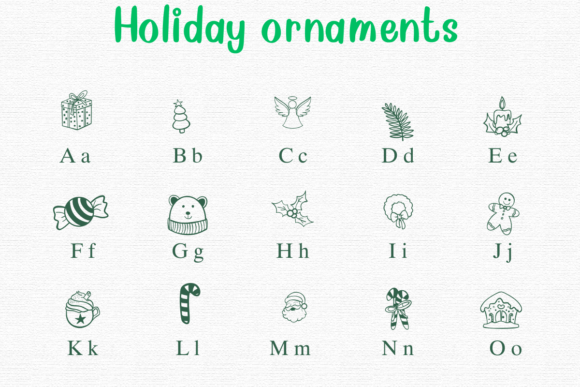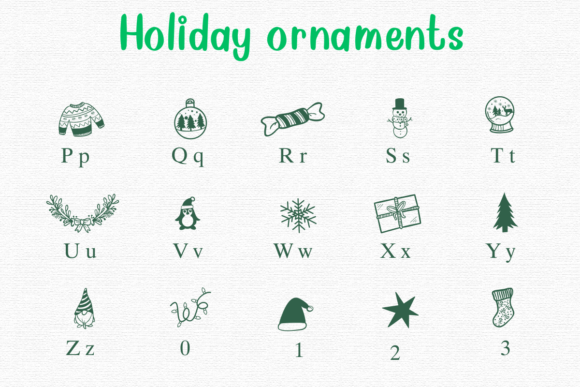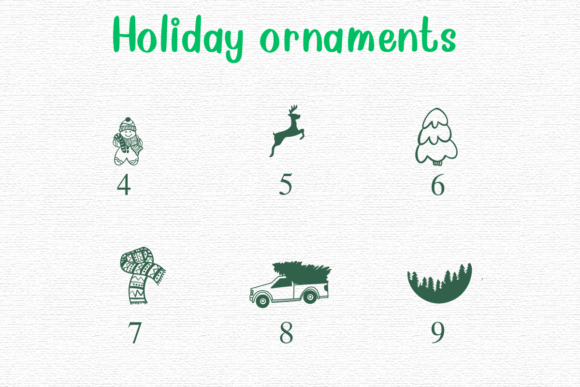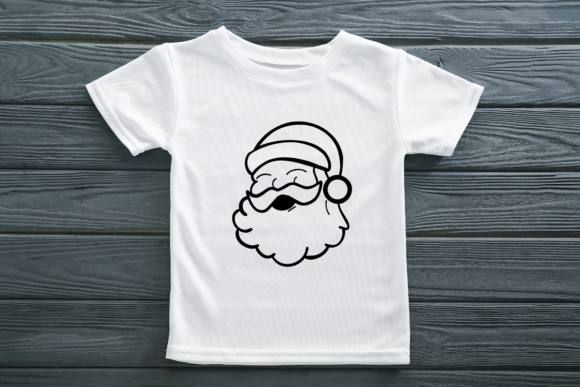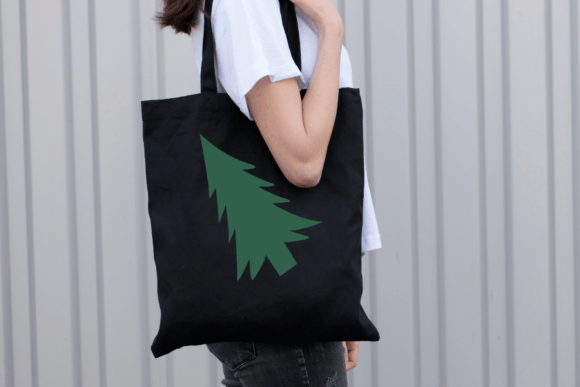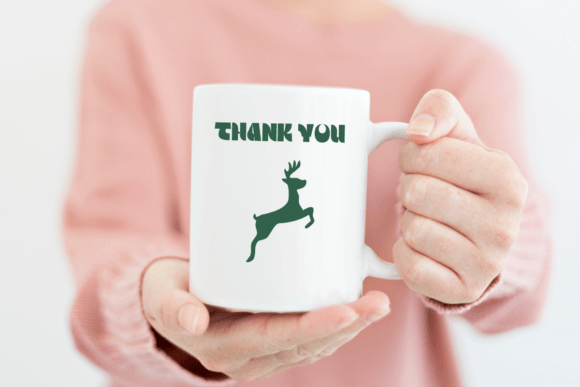
Introduction to Holiday Ornaments Font
Holiday ornaments is a dingbats font with theme with a sketch style.
This font can enhance your creative projects such as wedding invitations, DIY, crafts, decorations, logos, and many other creative ideas .
Key Features of Holiday Ornaments Font